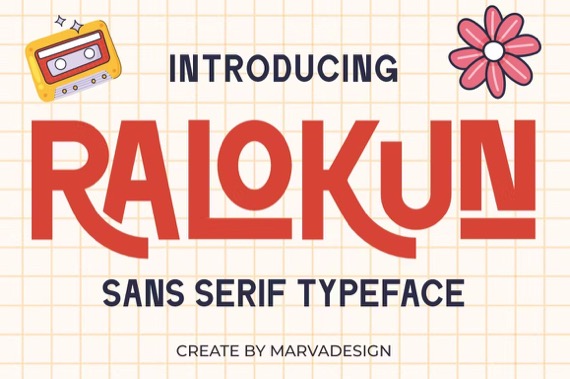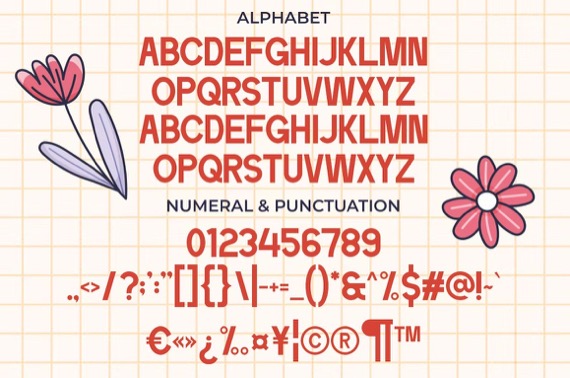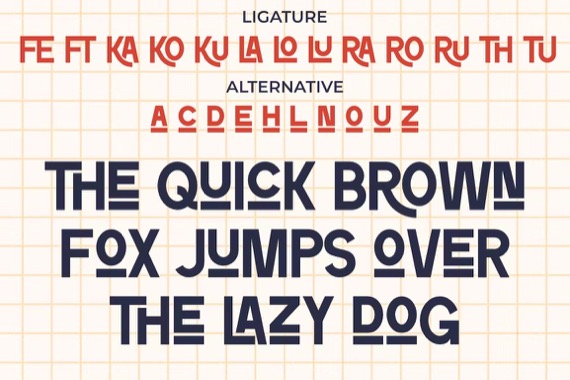
Ralokun is a meticulously designed display sans serif font to meet your design needs. The font is suitable for any branding project like Logo, Template Design, Product and many more. It is remarkable in a wide range of contexts.
Ralokun Retro Sans Font